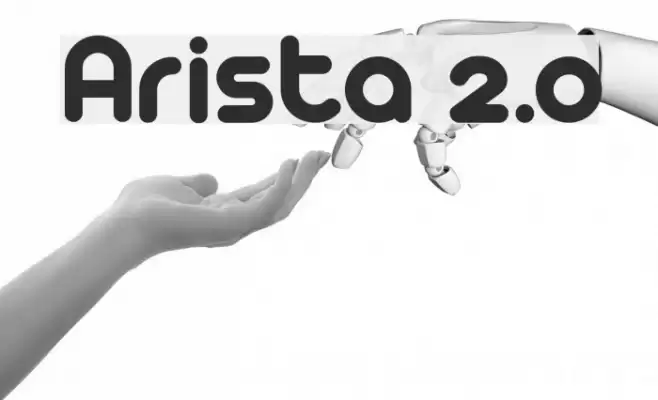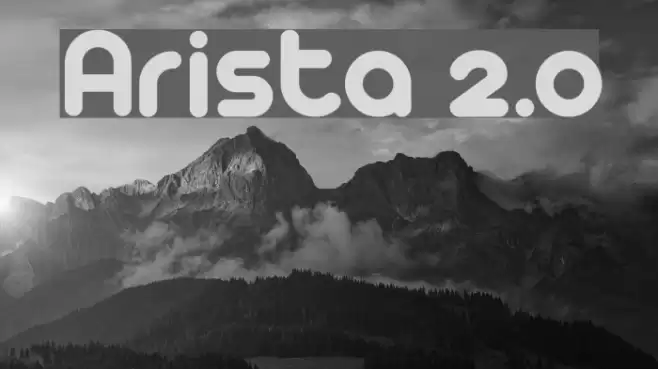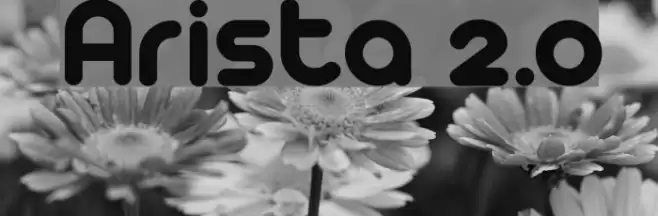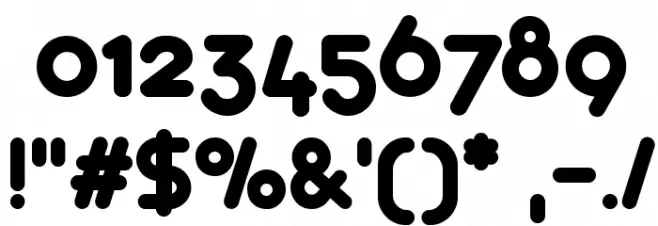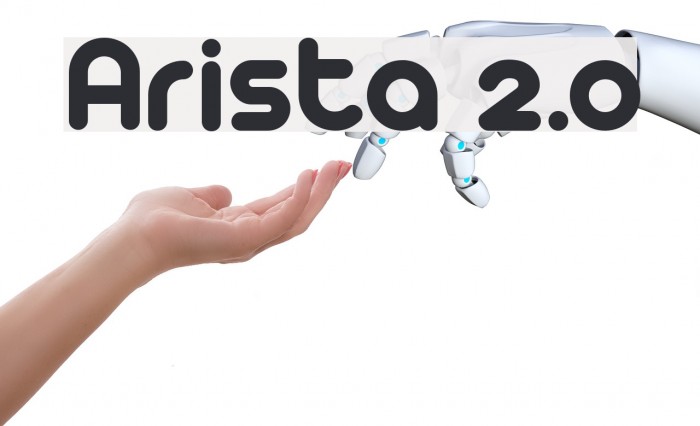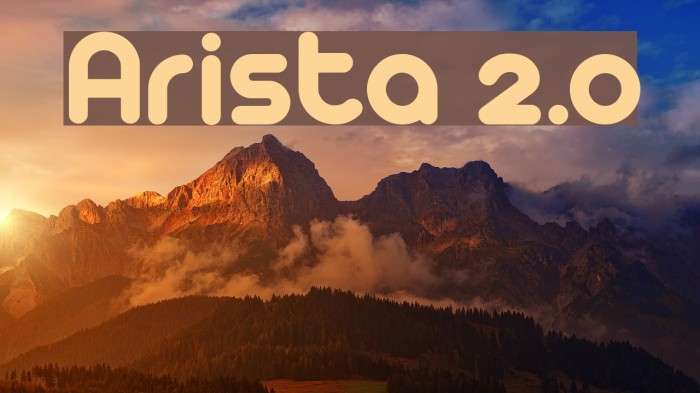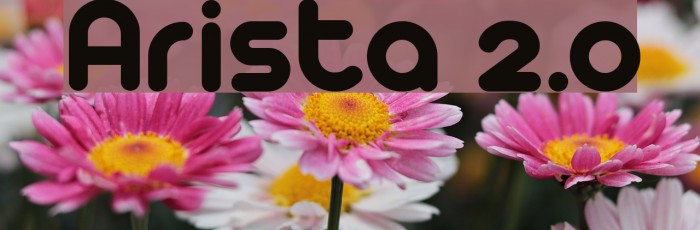
Arista 2.0
This font features a playful and rounded design with smooth curves and a friendly appearance. The characters are bold and uniform, creating a cohesive and approachable look. The rounded edges give it a soft and modern feel, making it suitable for various creative applications. The numerals and special characters maintain the same rounded style, ensuring consistency throughout the typeface. This font is versatile and can be used in both digital and print media, offering a contemporary and inviting aesthetic.
A playful, rounded font with smooth curves and a friendly appearance.
- Proposed Projects: Ideal for children's books, playful branding, casual invitations, and modern web design.
- Use Case: Headlines, Logos, Posters